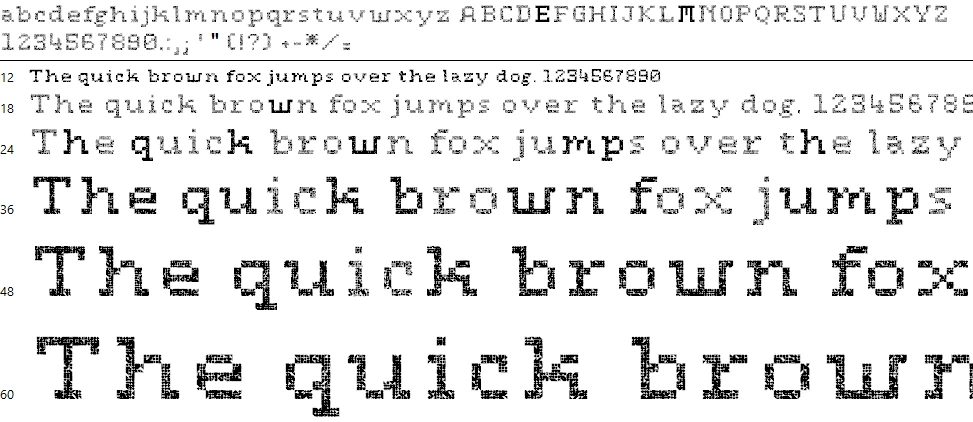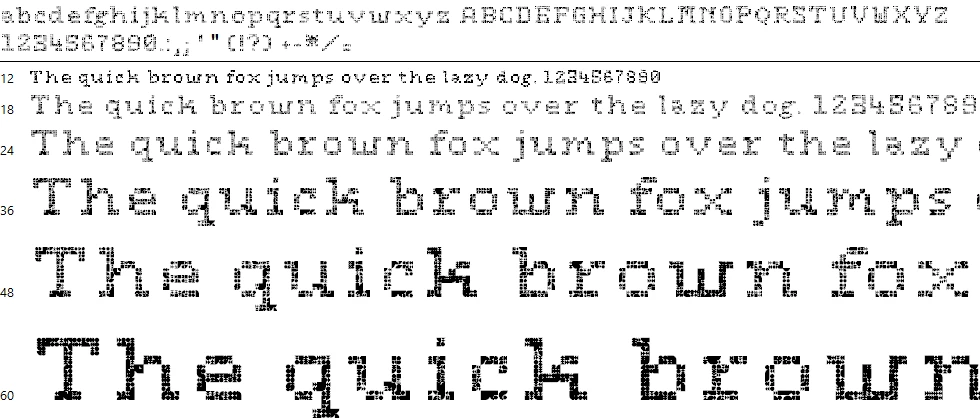
Liberta is a parametric OpenType font family created in just six days by a team of six people utilizing Type and Code to expedite the process. A set of three fonts has been made. They differ in complexity depending on the allocated modules; we increased the complexity of the letter’s structure by adding two or three rows and columns to the layout and using the same technique. It can create these three variations by starting with a square and then adding circles, triangles, sections, and combinations.
Liberta Font Family is excellent for logos, branding, invitations, stationery, wedding designs, logos, enterprise cards, covers, t-shirts, social media posts, and more. It will also be utilized to generate stunning images and text in a variety of colors and styles.
| Name | Liberta Font Family |
| Style | Display |
| Designer | Tipo type |